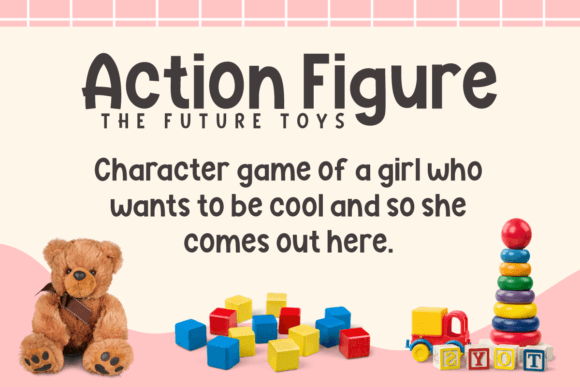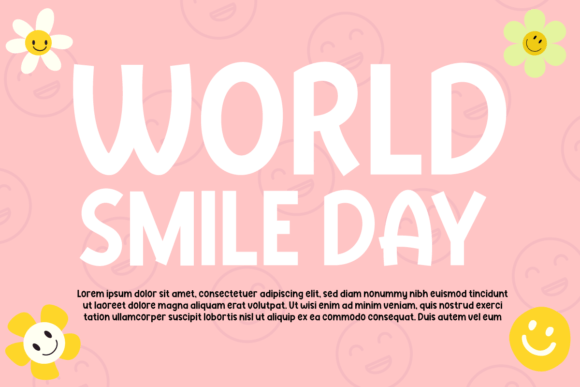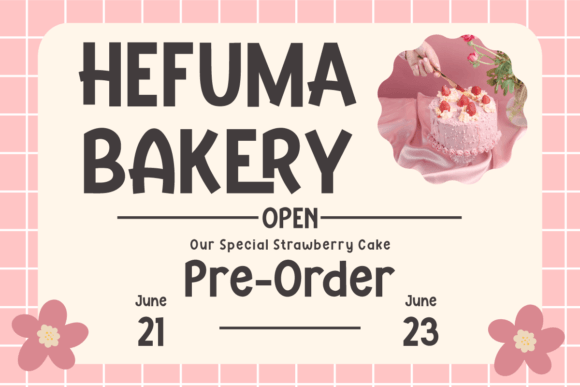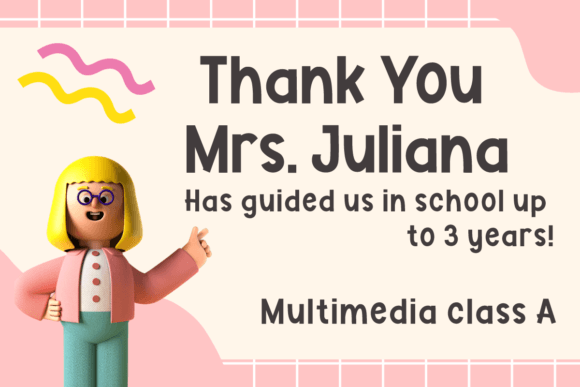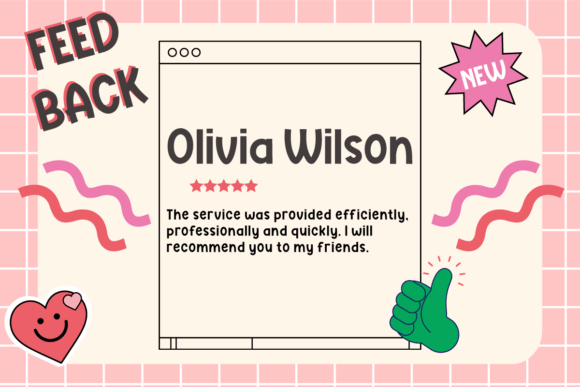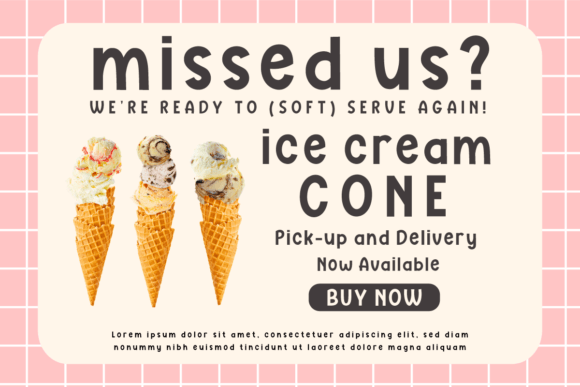
Introducing Hefuma Font: Where Playfulness Meets Typography
Are you tired of using the same old fonts for your designs? Do you want to add a touch of playfulness and creativity to your work? Look no further than Hefuma Font, a playful display font that’s set to infuse charm and imagination into your designs. In this article, we’ll dive into the world of Hefuma Font and explore its unique features, uses, and benefits.
A Delightful Twist to Your Projects
Hefuma Font is a whimsical display font that’s perfect for adding a touch of fun and personality to your designs. Its playful style captures attention and brings a sense of joy to your work, making it ideal for projects that aim to stand out. Whether you’re working on a children’s book, an eye-catching poster, or a creative craft project, Hefuma Font is the perfect choice.
Crafted with Meticulous Detail
Hefuma Font is crafted with meticulous detail, ensuring that every letter and character is unique and visually appealing. Its unique design invites readers to explore your content with curiosity, making it perfect for projects that require a touch of creativity and imagination.
Endless Possibilities
With Hefuma Font, the possibilities are endless. Use it to inject a sense of fun into your designs and watch as your creations come to life with personality and flair. Whether you’re a designer, crafter, or DIY enthusiast, Hefuma Font is your trusted companion for adding a playful touch to your work.
Hefuma Font is perfect for designers and crafters who want to add a touch of whimsy and creativity to their work. Its playful style makes it ideal for projects such as:
- Children’s books and educational materials
- Eye-catching posters and flyers
- Creative craft projects and DIY tutorials
Benefits of Using Hefuma Font
There are many benefits to using Hefuma Font in your designs. Some of the top benefits include:
- Unique and eye-catching design: Hefuma Font’s playful style captures attention and brings a sense of joy to your work.
- Versatility: Hefuma Font is perfect for a wide range of projects, from children’s books to eye-catching posters.
- Easy to read and understand: Despite its playful style, Hefuma Font is easy to read and understand, making it perfect for projects that require clear communication.
- Customizable: Hefuma Font can be customized to fit your project’s specific needs, ensuring that your designs stand out.
How to Use Hefuma Font
- Experiment with different sizes and colors: Hefuma Font looks great in a variety of sizes and colors, so don’t be afraid to experiment.
- Pair it with other fonts: Hefuma Font pairs well with other fonts, so try pairing it with a serif or sans-serif font for added contrast.
- Use it consistently: Use Hefuma Font consistently throughout your design to create a cohesive look.
In conclusion, Hefuma Font is a playful display font that’s perfect for adding a touch of creativity and imagination to your designs. Its unique design, versatility, and ease of use make it ideal for designers and crafters who want to stand out. Whether you’re working on a children’s book, an eye-catching poster, or a creative craft project, Hefuma Font is the perfect choice. So why wait? Download Hefuma Font today and start adding a playful touch to your work!